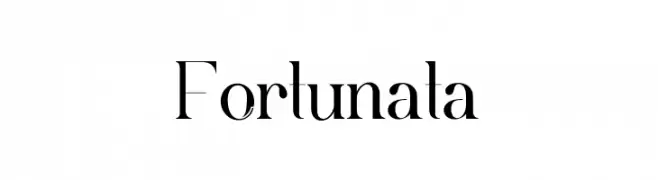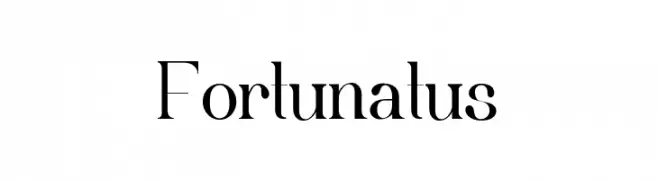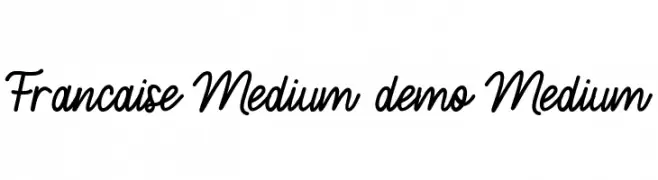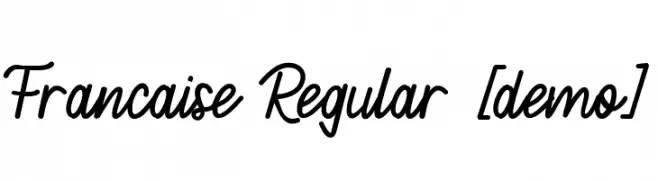
A playful and elegant script font with bold, flowing strokes and interconnected letters.
A lively and flowing script font with bold, smooth curves.
A modern, geometric font with a futuristic and technical design.
A festive decorative font with Christmas bell motifs integrated into each character.
A high-contrast, elegant font with sharp serifs and modern styling.
A high-contrast serif font combining modern and classic elements with elegant styling.
A graceful and elegant script font with flowing, interconnected characters.
A bold, elegant script font with fluid, interconnected strokes.
A classic, elegant script font with flowing, cursive letterforms.
A cursive script font with elegant, interconnected letters and a classic calligraphic style.